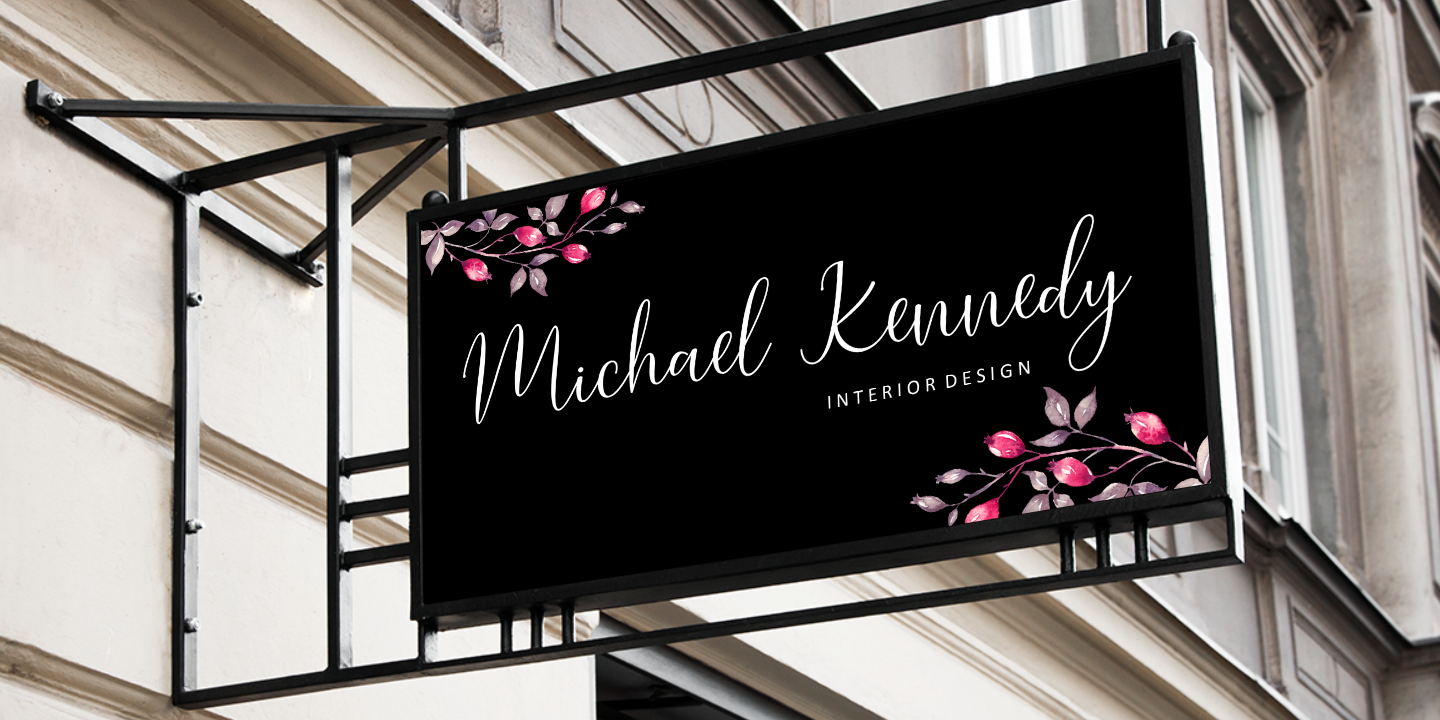
Discover the stunning Prestiquen Script Font Free Download, a modern calligraphy typeface by Megatype that exudes elegance and sophistication. This font is perfect for creating a graceful, flourished aesthetic. However, please note that you must purchase this font for commercial use. For testing purposes, you can download it for free and explore its captivating style.
The Prestiquen Script Font is ideal for various applications, such as designing luxurious wedding invitations, crafting elegant logos, creating romantic social media graphics, or adding a refined touch to product packaging and book covers. Its versatility, with OpenType stylistic alternates and ligatures, makes it a top choice for projects that demand a polished, hand-crafted look.
Why is the Prestiquen Script Font Free Download so exciting? Its flowing, swash-filled design and PUA-encoded glyphs offer a beautiful, hand-drawn charm that dances across your compositions. The font’s casual yet sophisticated style, with support for most Western languages, ensures your designs stand out with timeless elegance.
The Prestiquen Script Font family includes four styles: Regular, Slant, Bold, and Slant Bold, providing flexibility for diverse design needs. These variations allow you to experiment with different weights and angles, perfect for both print and digital media.